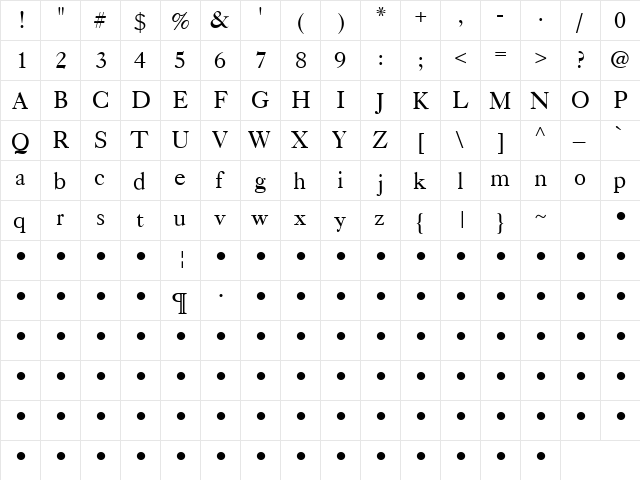
Sick As A Dog 3 Regular
Design Context for Sick As A Dog 3 Typeface
Sick As A Dog 3 is a composed and adaptable typeface that performs quietly and consistently across a wide range of design contexts.